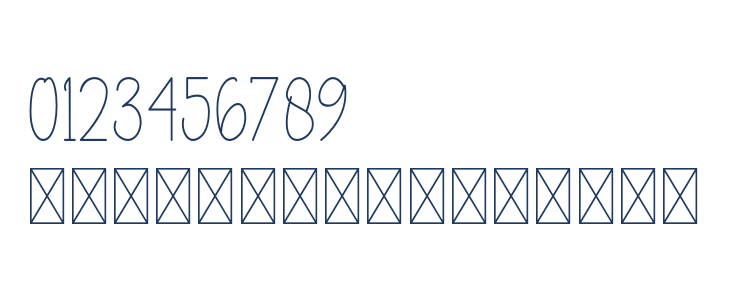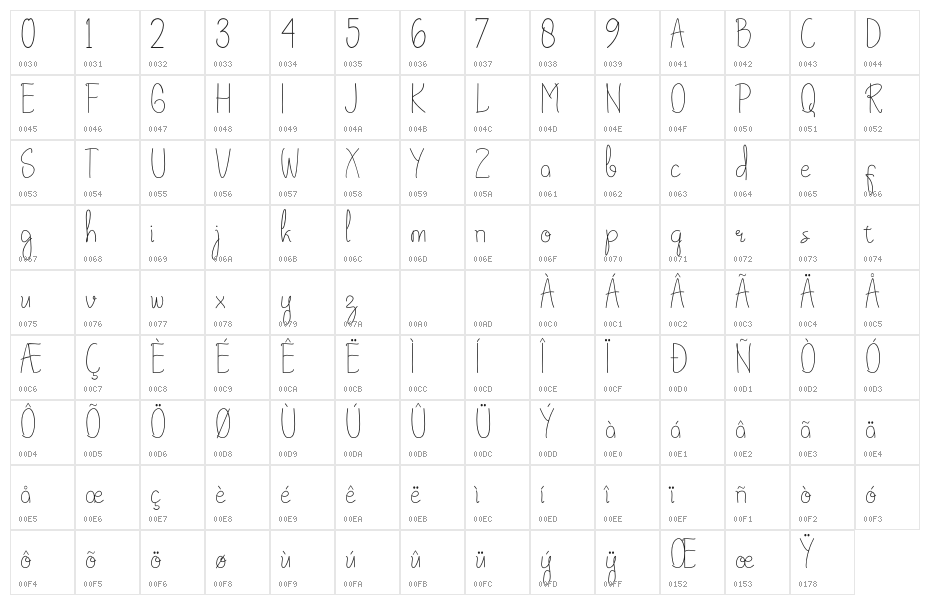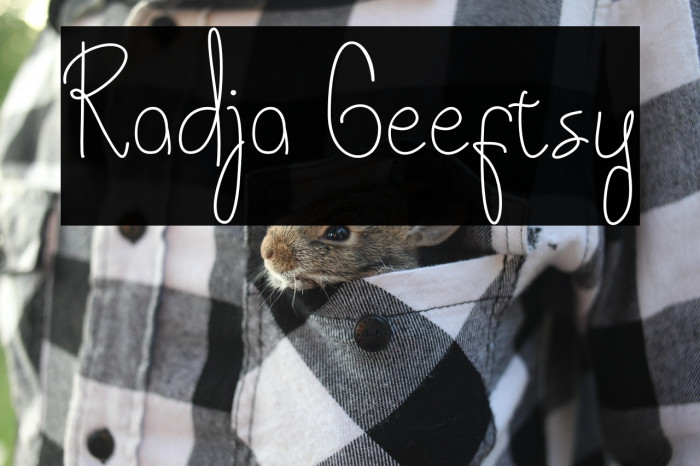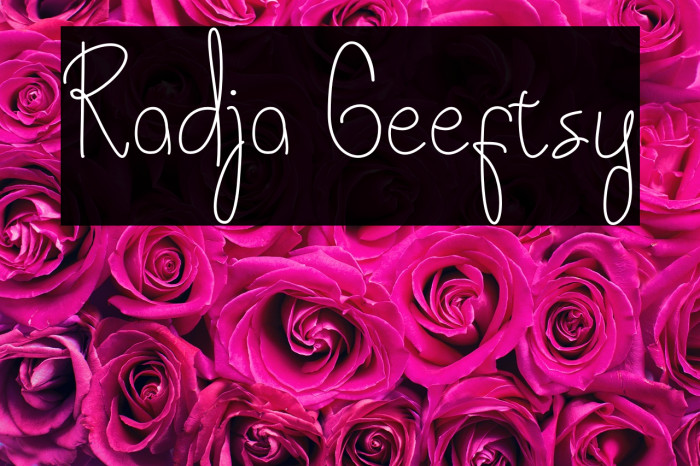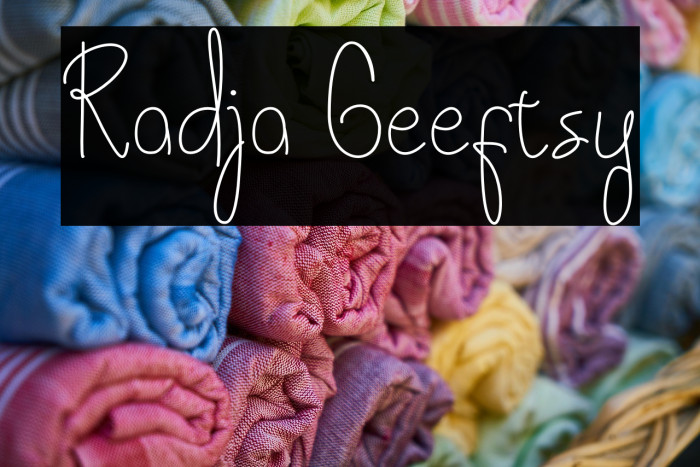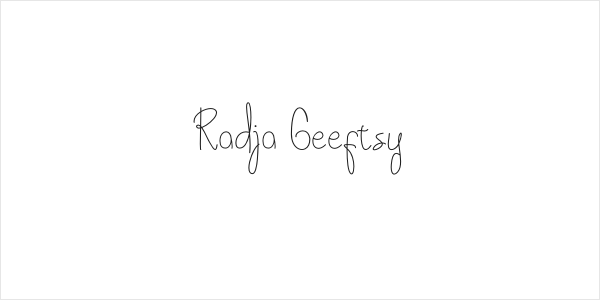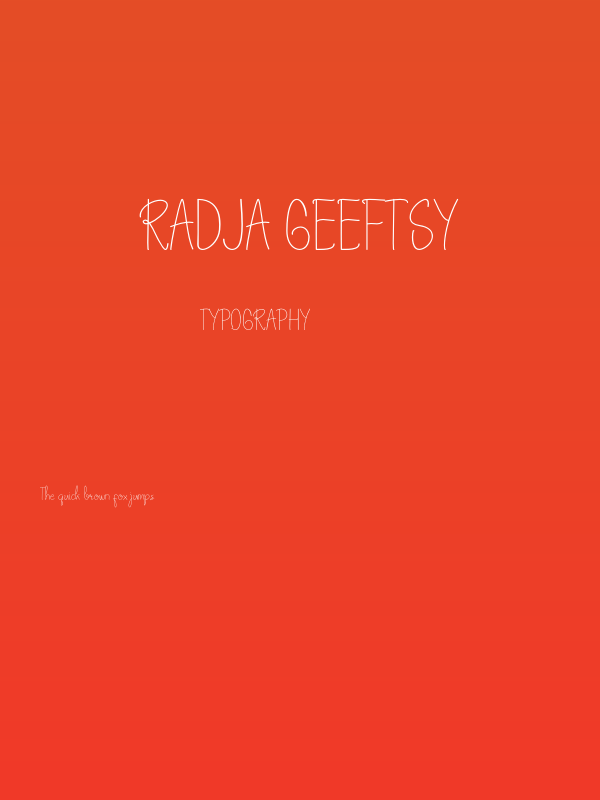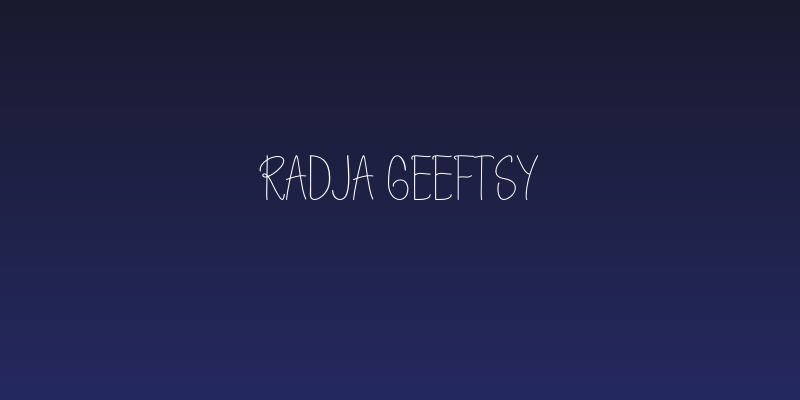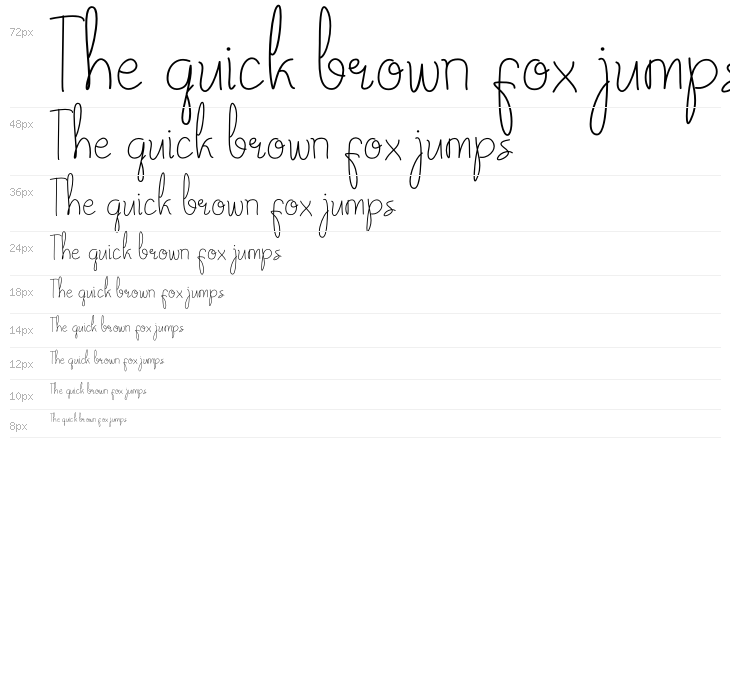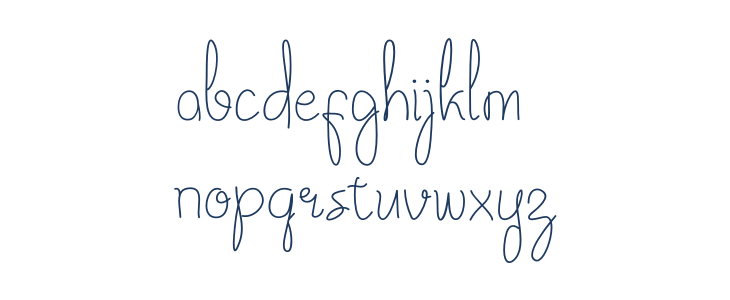
Radja Geeftsy Font
Radja Geeftsy Description
This font features a playful and whimsical style with tall, narrow characters and a hand-drawn appearance. The uppercase letters are elongated and slightly irregular, giving a casual and friendly feel. The lowercase letters maintain a consistent height with a slight slant, adding to the informal aesthetic. Numbers are clear and legible, matching the overall style. The special characters are creatively designed, fitting seamlessly with the rest of the font. This font exudes a sense of fun and creativity, making it ideal for projects that require a personal touch.
| Overall Style | Whimsical |